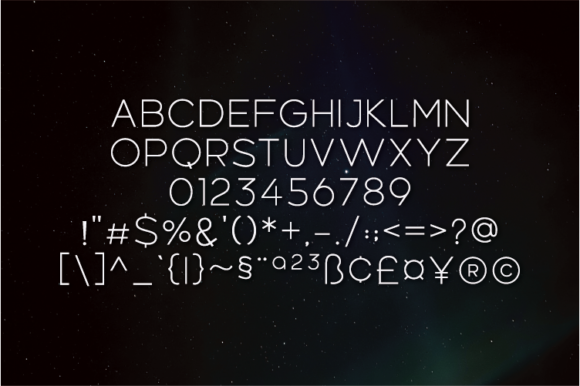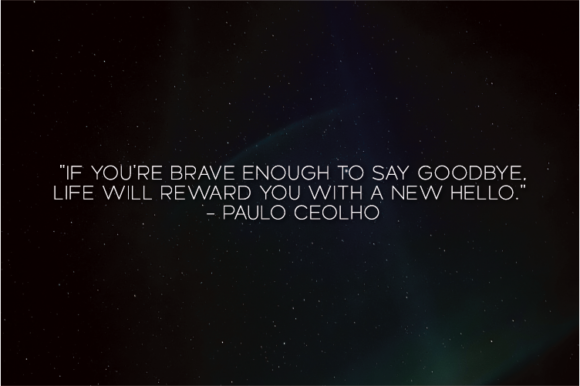
Have you ever stared at a blank canvas, struggling to bring your ideas to life? You’re not alone. As creatives, we’ve all been there – searching for the perfect combination of style and substance to make our projects truly shine. That’s where the Evolune Font comes in.
This sleek and modern sans serif font is designed to elevate your designs and make them stand out in a crowded market. With its clean lines and minimal aesthetic, Evolune Font is the perfect addition to any project, from logos and branding to digital products and publications.
For designers, the Evolune Font offers a unique value proposition – versatility. Whether you’re working on a high-end fashion campaign or a tech startup’s website, this font adapts seamlessly to any style or tone, making it an essential tool in your creative arsenal.
Evolune Font Key Features
- Font Family: Evolune is a modern sans-serif font with a friendly and approachable feel.
- Character Set: Includes over 500 glyphs, including Latin, Cyrillic, and Greek alphabets, as well as punctuation and symbols.
- Unique Characteristics: Evolune features a unique blend of geometric and organic shapes, with a subtle rounded edge and a friendly, approachable feel.
Evolune Font Review
Overall, I’m quite impressed with the Evolune Font. ✨ It has a unique, elegant feel that’s perfect for creative projects. The font’s curvaceous lines and organic shapes evoke a sense of whimsy and sophistication at the same time.
- Works well for:
- Headings and titles, thanks to its bold and statement-making feel.
- Body text, where its readability and legibility shine.
- Emphasis, where the font’s flair and drama can add visual interest.
However, there are a few limitations to consider: ⚠️ The font may not be ideal for:
- Small text sizes, where the curves can become blurry or hard to read.
- Technical or instructional content, where a more straightforward font might be more suitable.
- Web fonts, where the Evolune Font may not be as widely supported or compatible.
Overall, I’d give the Evolune Font a solid 4 out of 5 stars. While it may not be the perfect choice for every project, it’s a versatile and stylish font that’s well worth considering for creative endeavors.
Tips for Getting the Most Out of Evolune Font
To get the most out of Evolune font, use it for:
- Titles and headings: Evolune font is perfect for creating eye-catching titles and headings.
- Body text: Use Evolune font for body text to add a touch of elegance and sophistication.
- Branding: Evolune font can be used to create a consistent brand identity across your marketing materials.
Evolune font is commonly used in:
Yes, the Evolune Font is optimized for digital use, with carefully crafted glyph shapes and kerning to ensure clear and legible display on screens. This includes support for various screen resolutions and devices.
Can I customize the Evolune Font?
Yes, the Evolune Font is a highly customizable font, allowing you to adjust the weight, style, and other attributes using your design software. Additionally, the font includes a range of OpenType features, such as ligatures, swashes, and ornaments, which can be accessed through your software’s font menu.